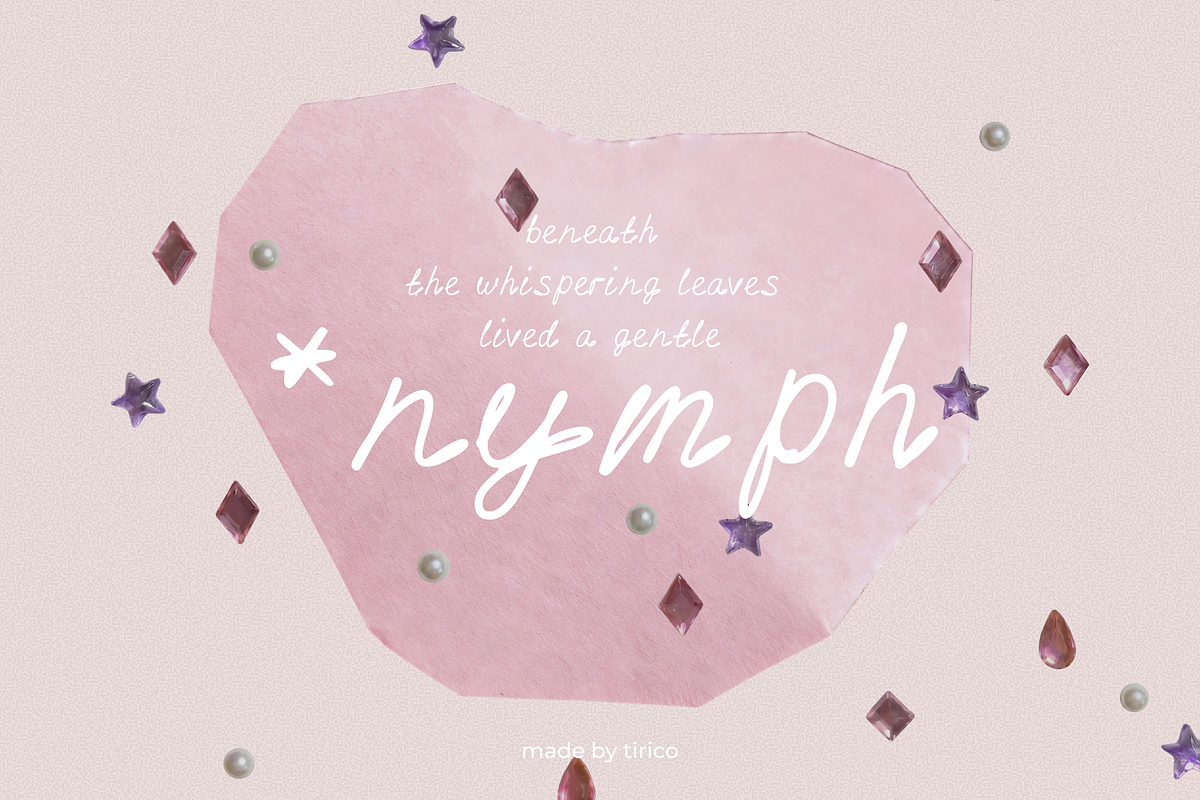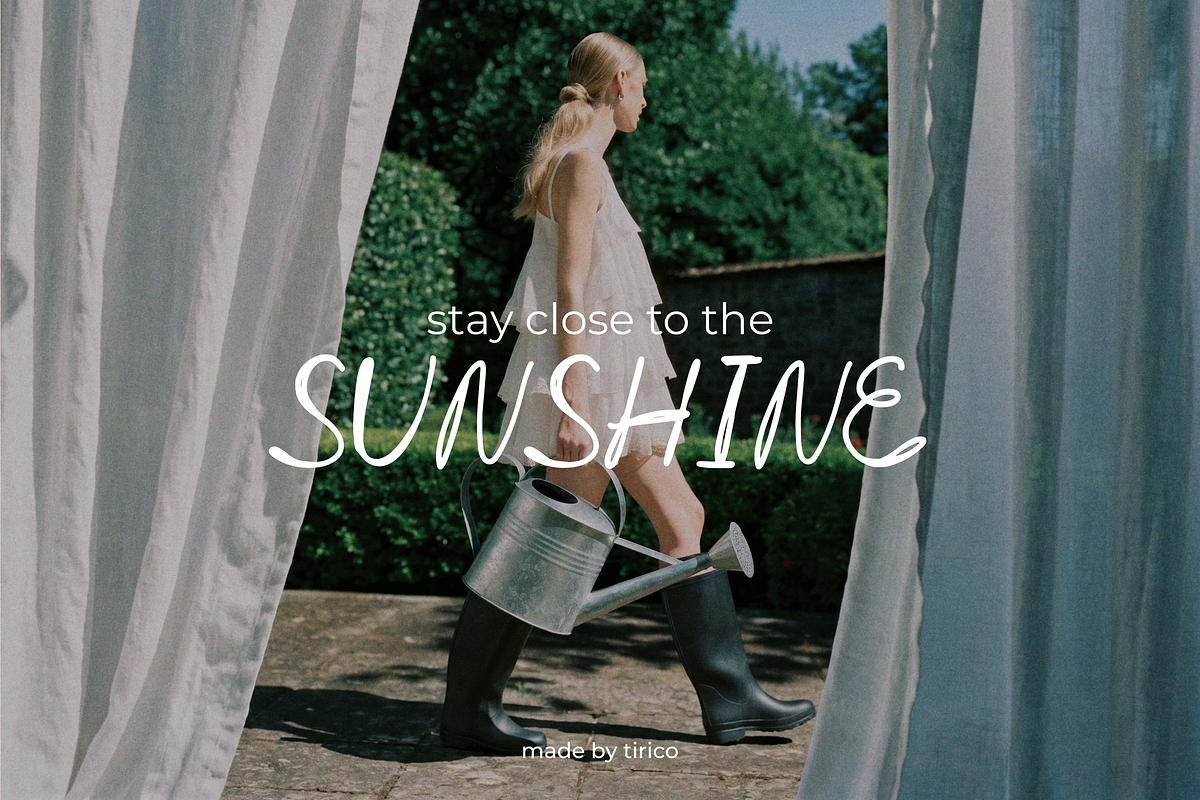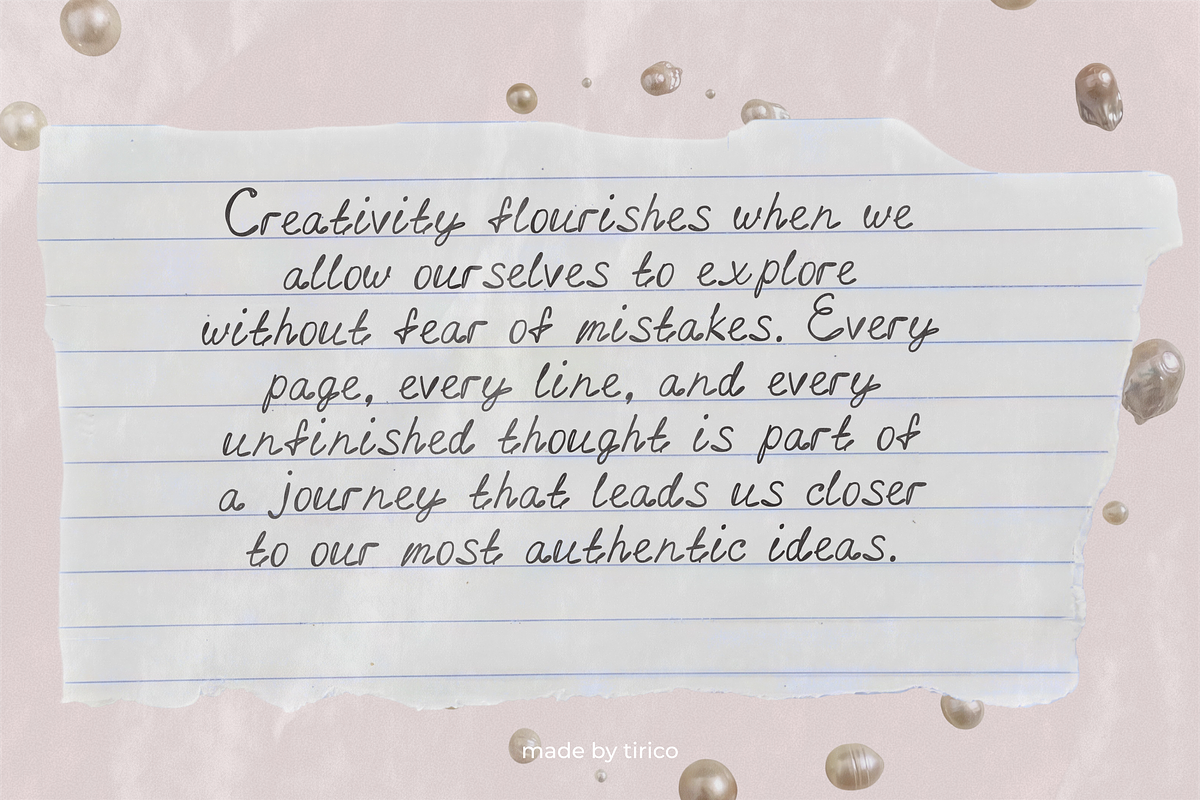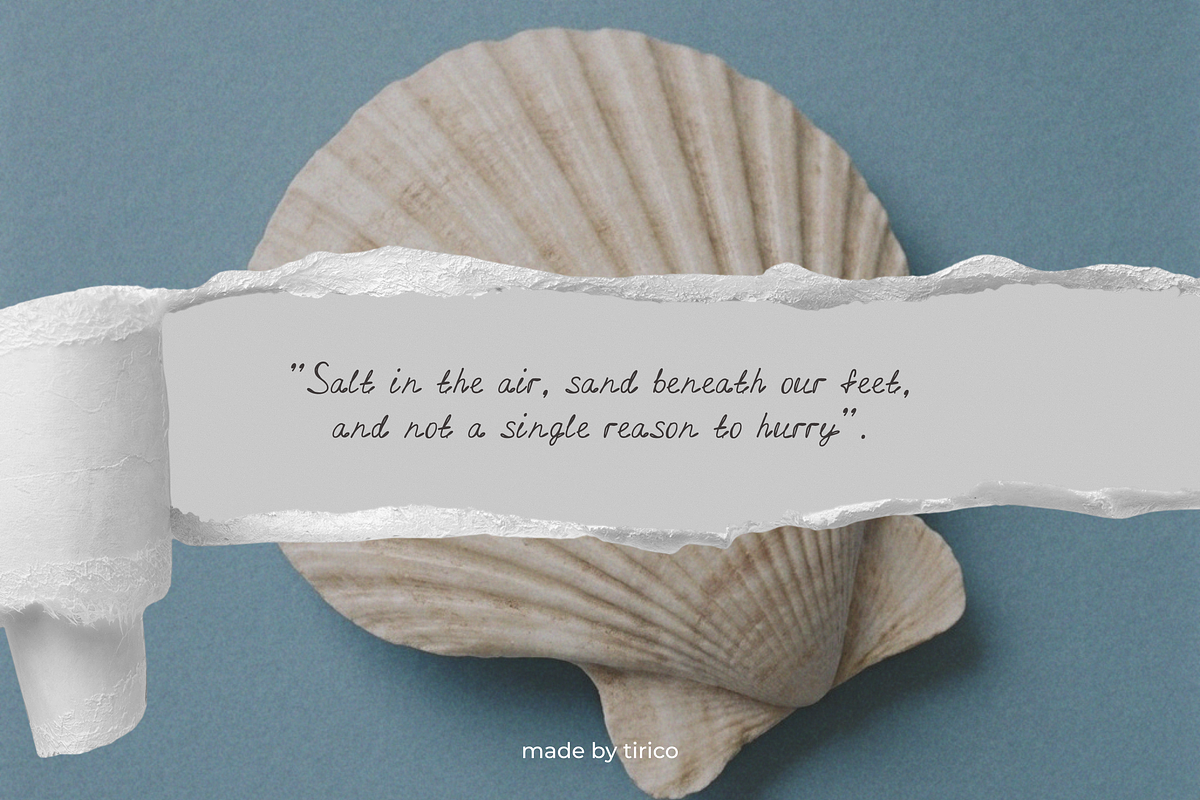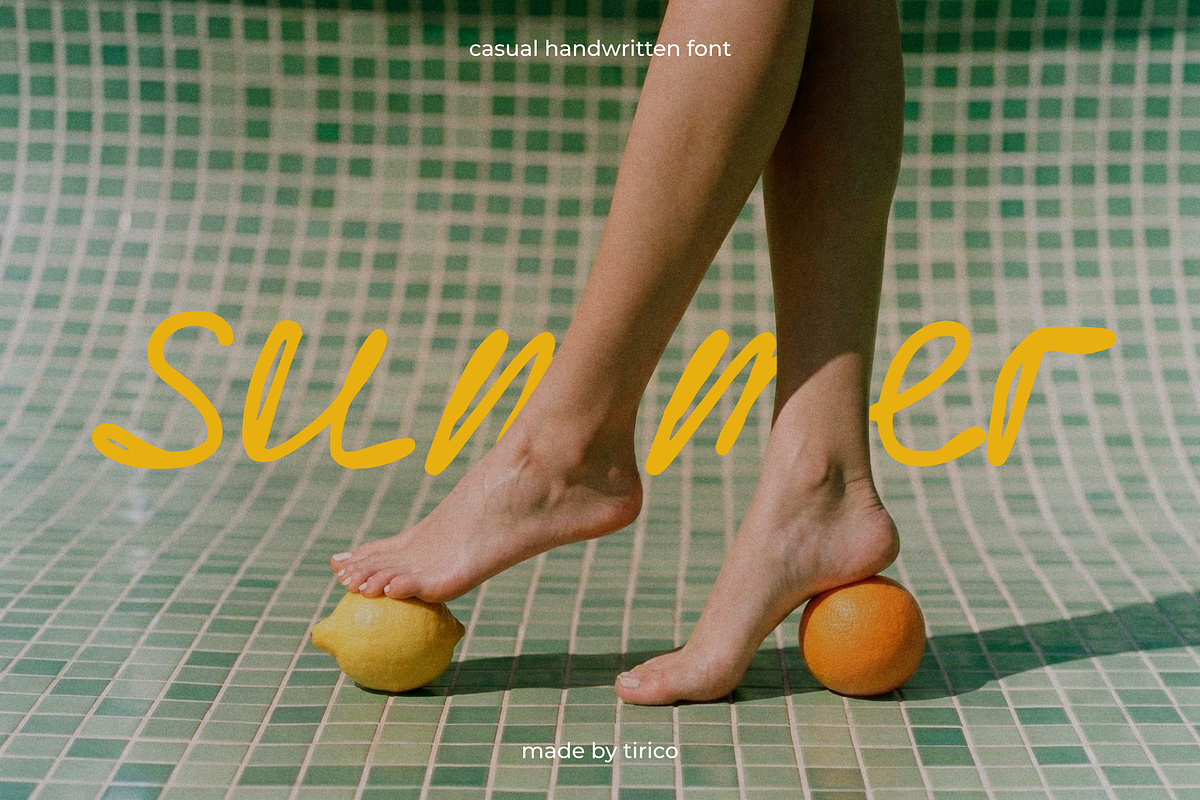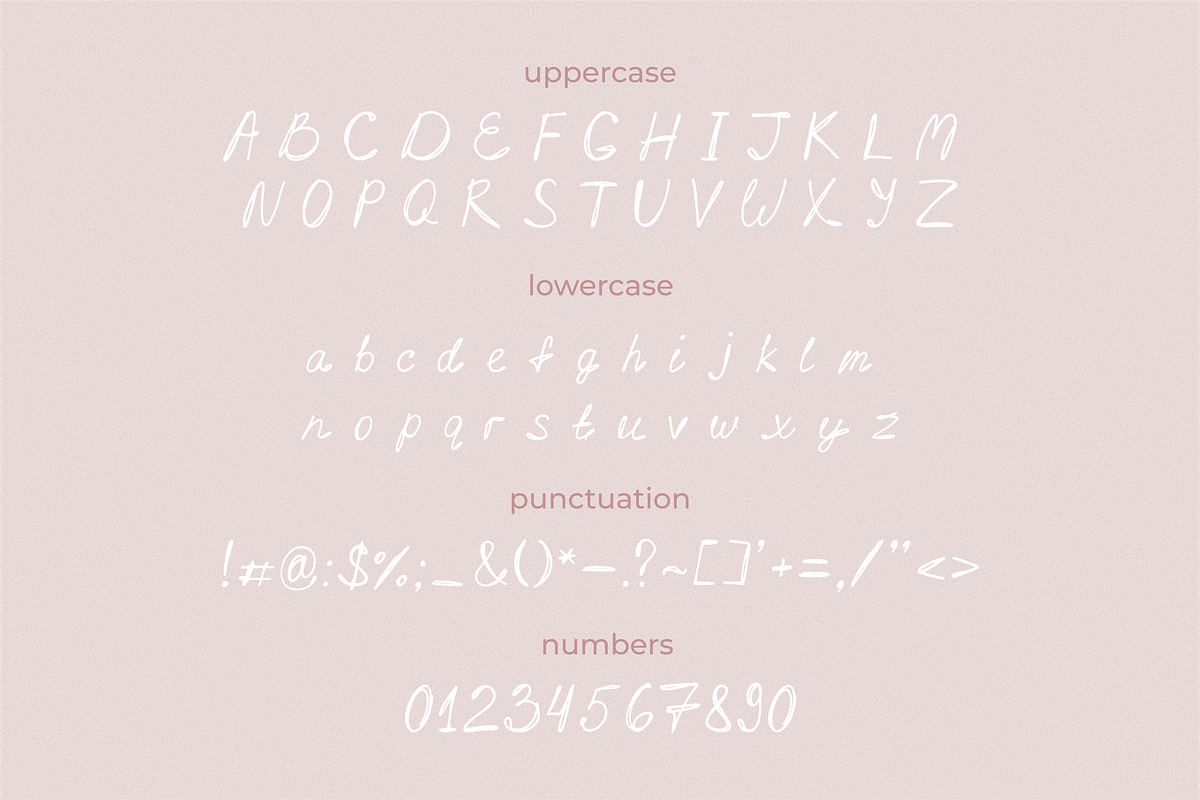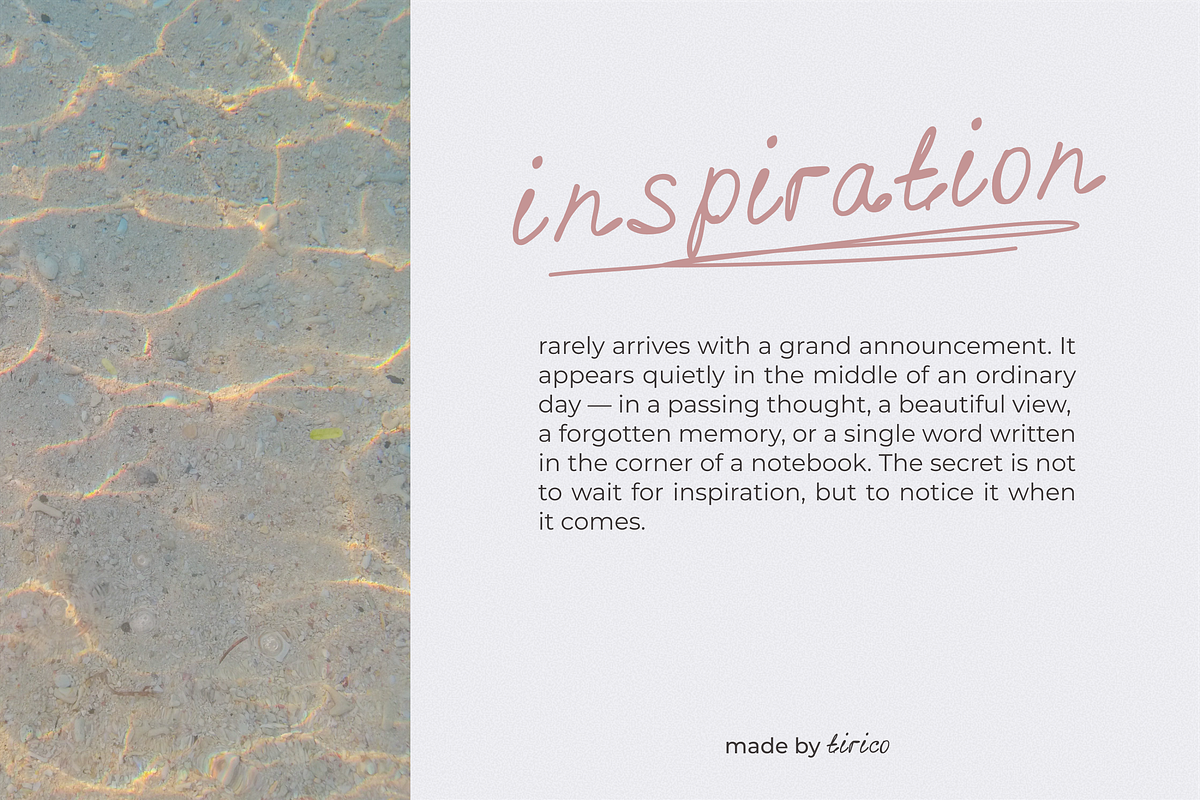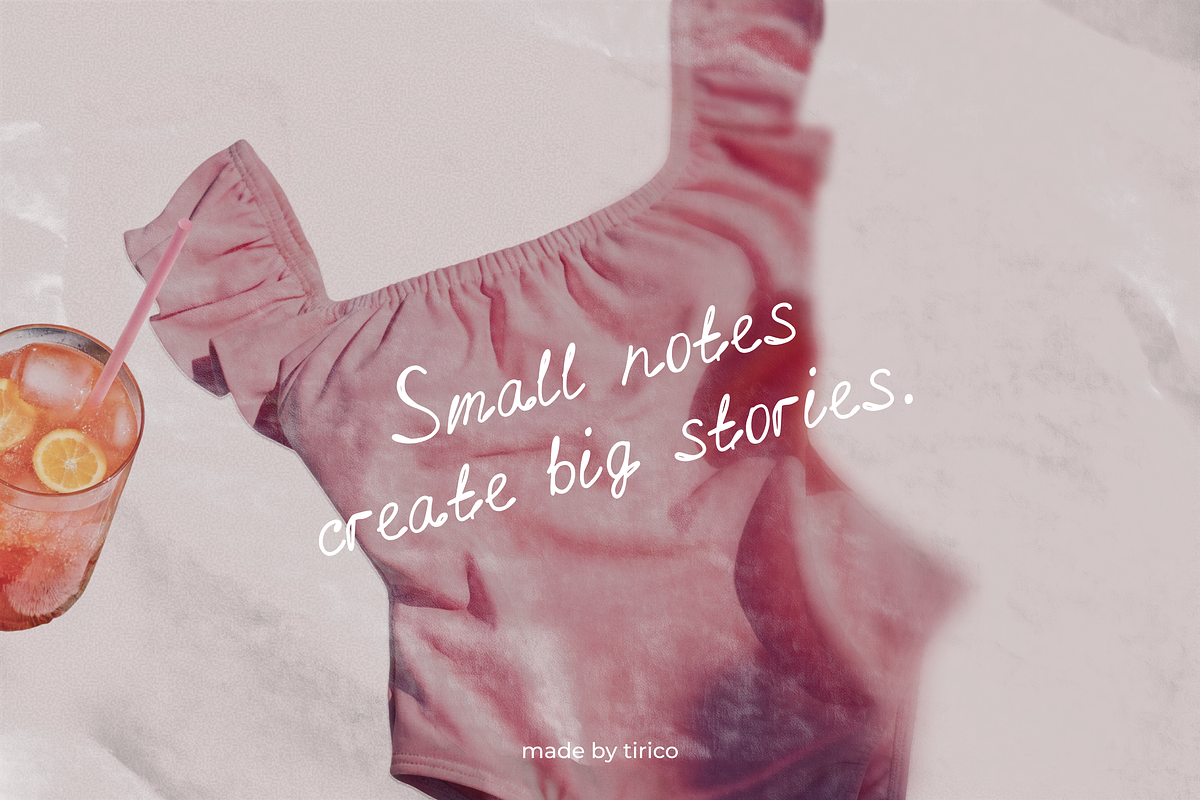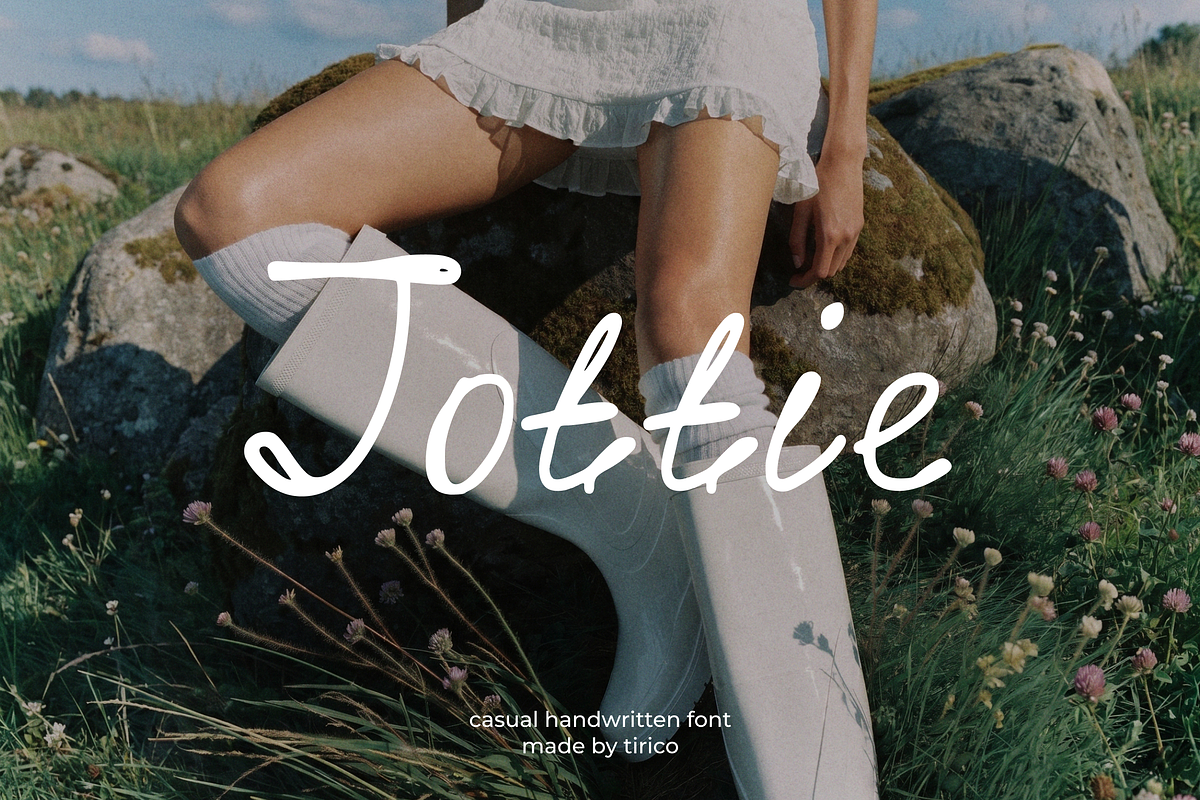
Jottie | Casual Handwritten Font
Jottie is a casual monoline handwritten font inspired by everyday notes, creative journaling, and spontaneous ideas. Its natural letterforms and friendly character make it perfect for branding, social media graphics, invitations, quotes, posters, planners & journaling and scrapbook or craft projects.